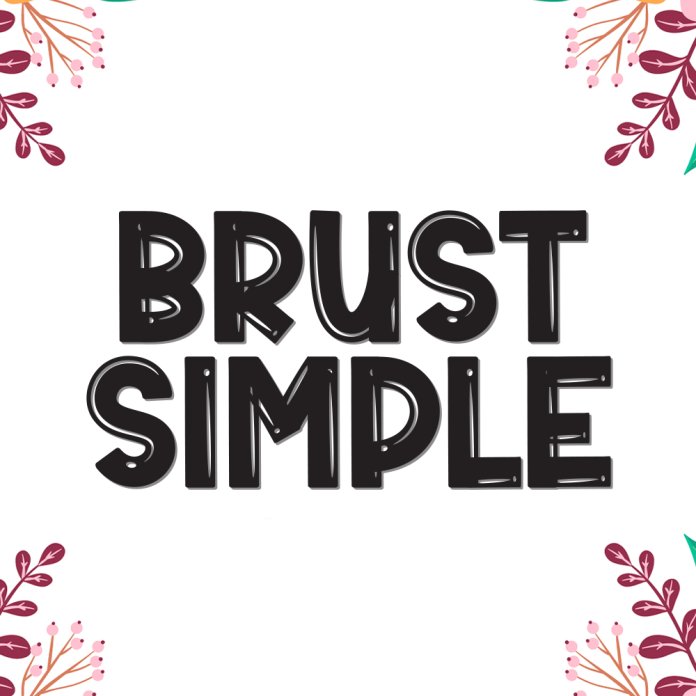
Brust Simple is a minimalist and contemporary display font designed for clarity and visual impact. With clean lines and a bold presence, this font is perfect for logos, posters, product packaging, editorial layouts, and digital designs that need a strong, modern typographic statement.
Its simplicity makes it highly versatile—ideal for both headline and branding use, ensuring your message is delivered with style and precision.
Display Font Style
Bold & Clean Letter Design
Make your designs stand out with the sleek and stylish Brust Simple!